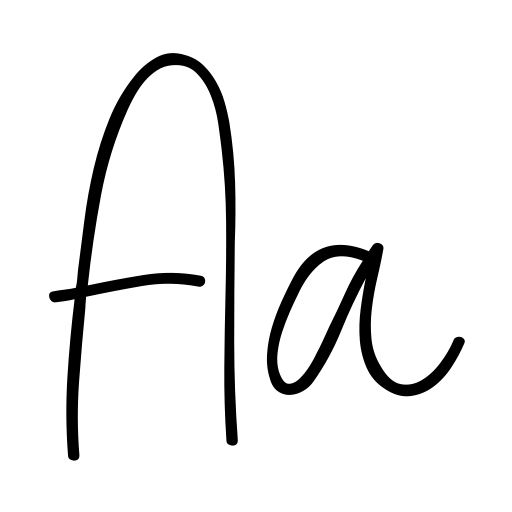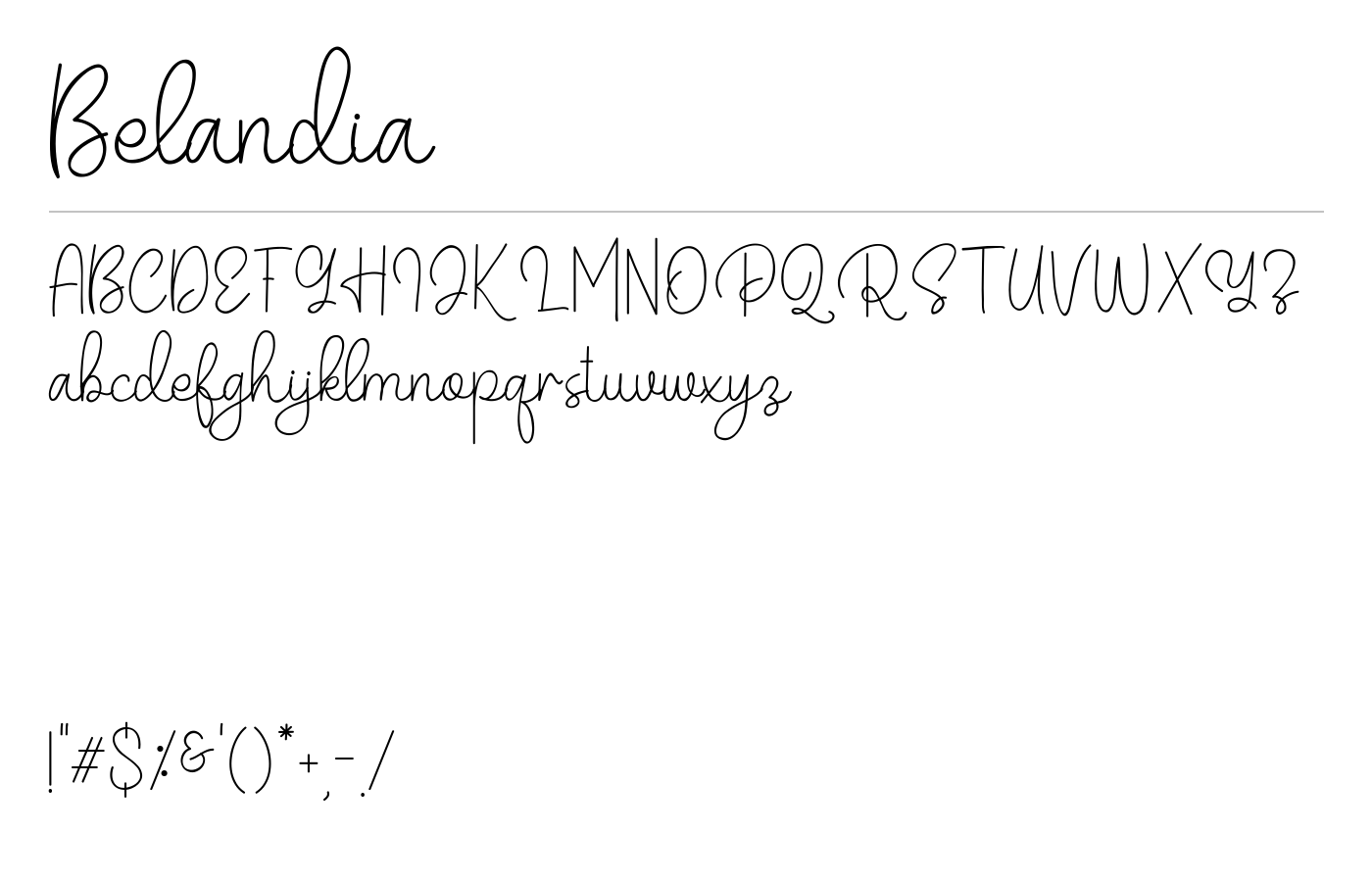
Belandia is a delicate, handwritten script font characterized by its thin, flowing strokes and playful, slightly irregular letterforms. Its narrow width and elegant curves give it a charming, casual feel, making it perfect for creative branding, invitations, and personal projects where a warm, approachable style is desired. This font adds a touch of personality and friendliness without sacrificing readability.
Belandia Font
About Belandia Font
| Font family | Belandia Font |
| Designer | Fahrul Arjianto |